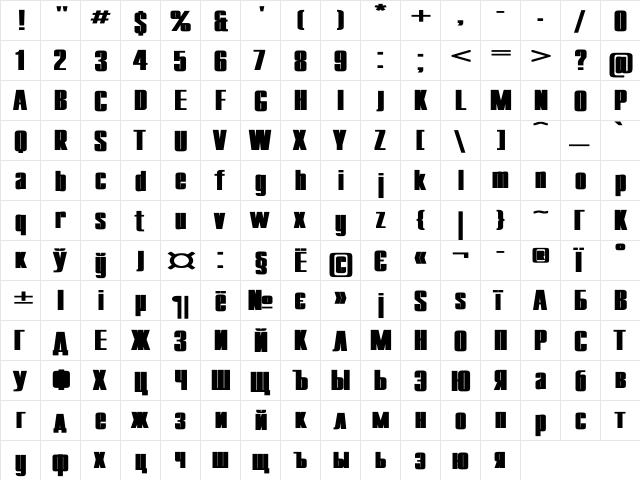
Compact Ex Bold Font Preview
Compact Ex Bold
Design Context for Compact Ex Typeface
Compact Ex takes a measured approach to typography — its balanced proportions and neutral character make it a reliable workhorse for both digital and print work. Its bold stroke weight gives it real presence on the page. Its narrow stance lets it pack a punch even in space-constrained designs.